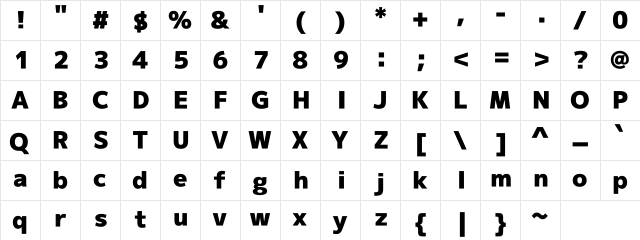
M+ 2p black
Design Context for M+ 2p Typeface
M+ 2p takes a measured approach to typography — its balanced proportions and neutral character make it a reliable workhorse for both digital and print work.